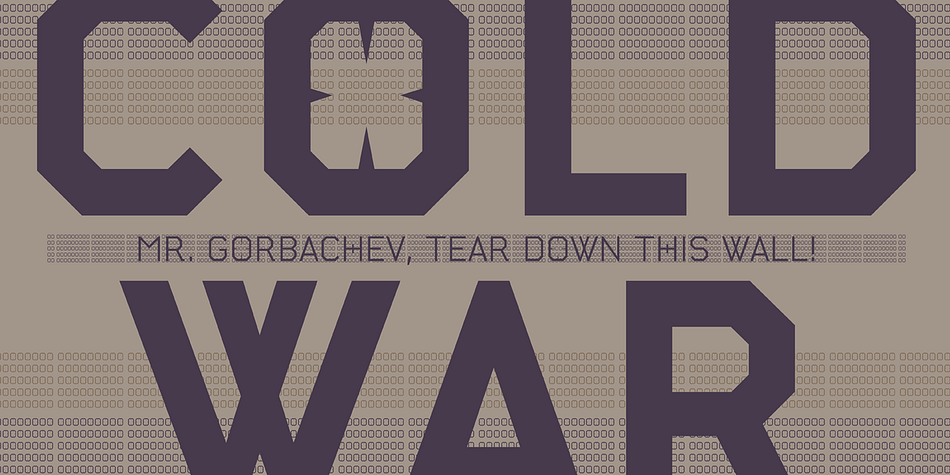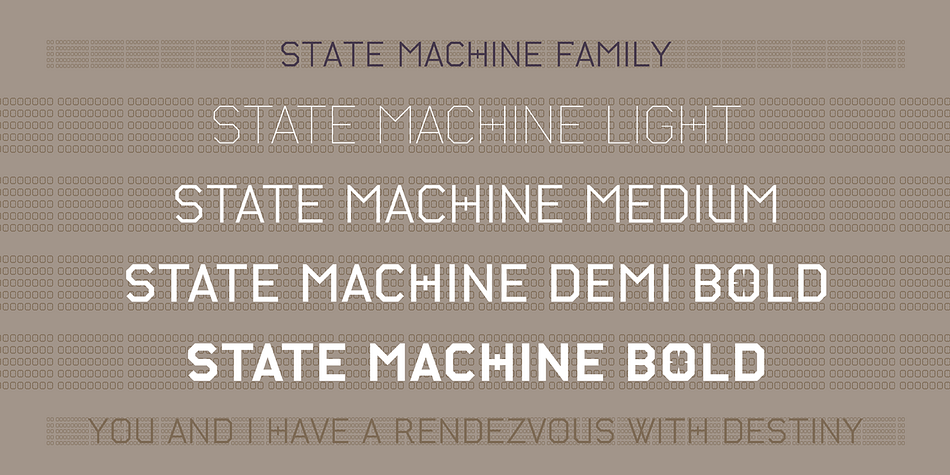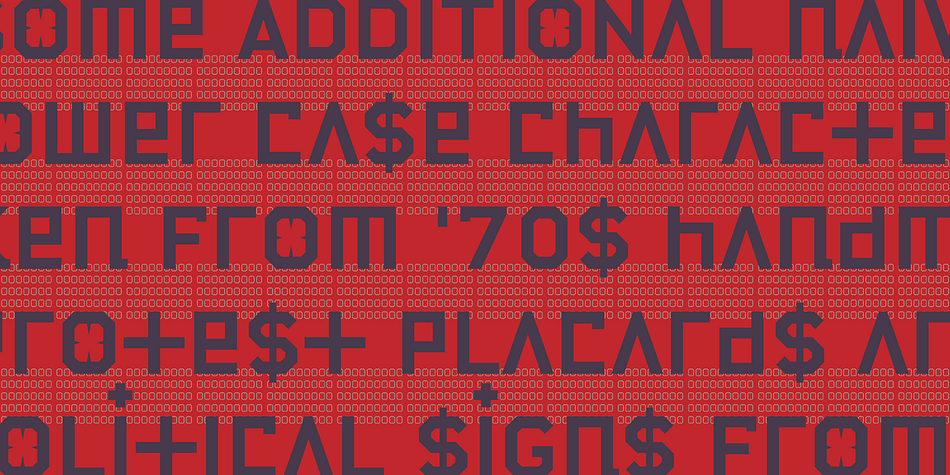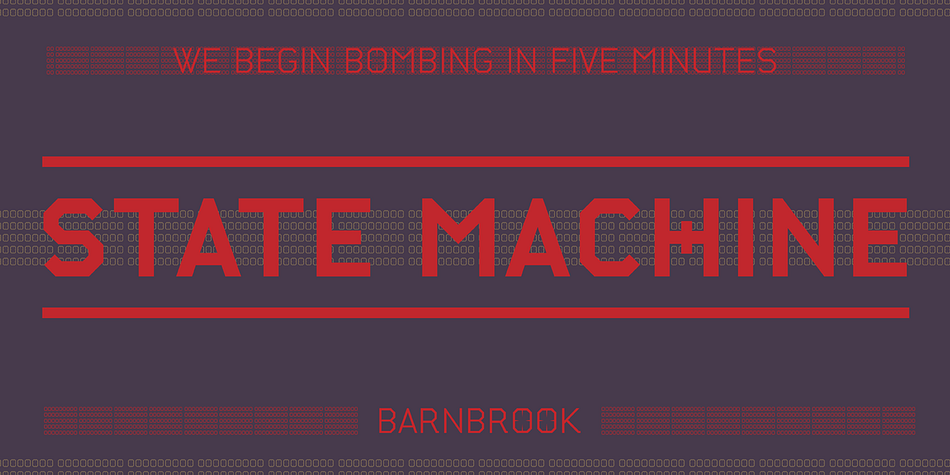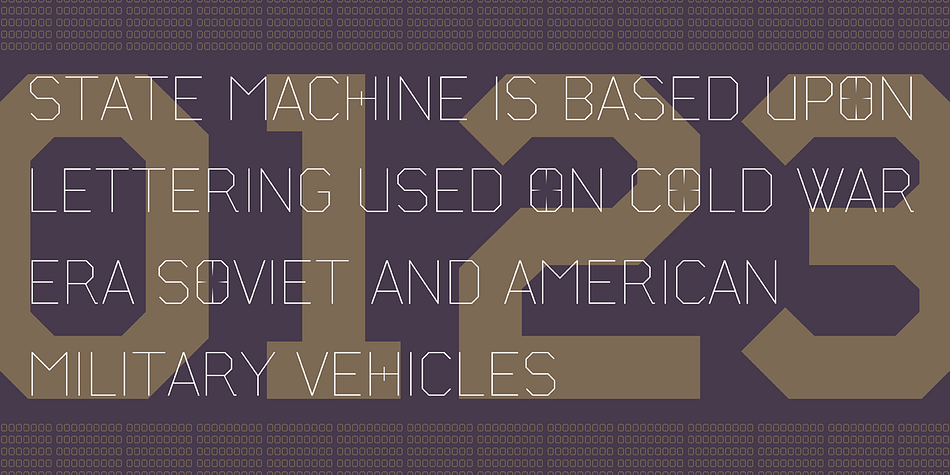
Designed by Jonathan Barnbrook, State Machine is a display sans font family. This typeface has four styles and was published by Barnbrook Fonts.
A display typeface inspired by lettering applied to American and Russian Cold War-era military vehicles, State Machine also features an alternate character set inspired by 1970s hand-made political banners.
Designers | Marcus Leis Allison, Jonathan Barnbrook |